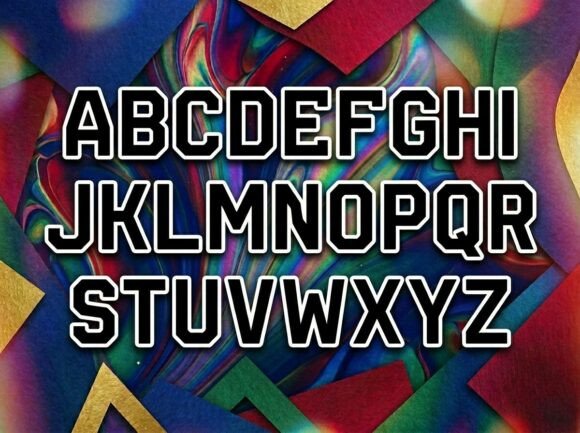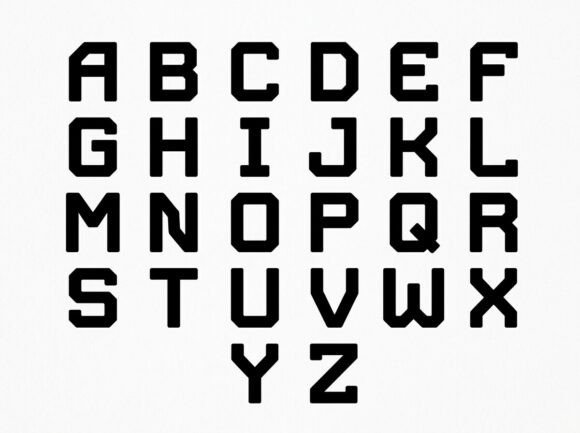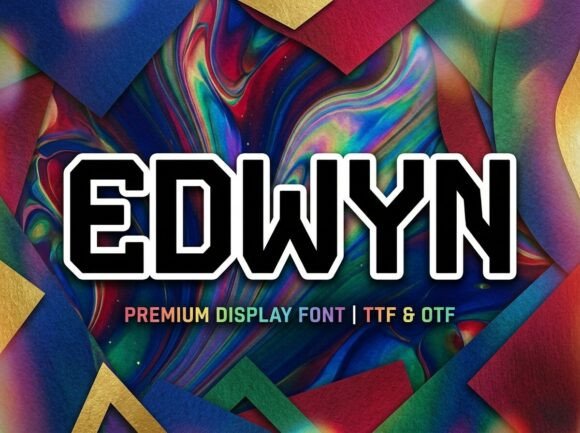
Introducing Edwyn Font: A Stunning Decorative Display Font
Are you tired of using the same old fonts for your designs? Do you want to add a touch of uniqueness and creativity to your projects? Look no further than Edwyn Font, a decorative display font that is sure to turn heads. In this article, we’ll take a closer look at Edwyn Font, its features, and how it can elevate your designs.
Edwyn Font is a stunning decorative display font designed to be the center of attention. With its unique artistic elements and strong visual personality, this font is perfect for creators who want to break away from the ordinary. Whether you’re working on a bold headline, artistic logo, or creative packaging, Edwyn Font is the perfect choice.
Key Features of Edwyn Font
- Unique Artistic Elements: Edwyn Font features unique artistic elements that set it apart from other fonts. Each letter is carefully crafted to make a statement, making it perfect for high-impact headlines, logos, and decorative initials.
- Strong Visual Personality: This font has a strong visual personality that is sure to grab attention. Its bold and eye-catching design makes it perfect for creative projects that require a touch of drama.
- Versatile: Edwyn Font is versatile enough for a variety of design applications, including bold headlines, artistic logos, and creative packaging.
- Professional and Polished Finish: Despite its bold and artistic design, Edwyn Font maintains a professional and polished finish, making it suitable for a wide range of projects.
Why Choose Edwyn Font?
So, why choose Edwyn Font for your design projects? Here are just a few reasons:
- Add a Touch of Uniqueness: Edwyn Font is a unique and creative font that will add a touch of personality to your designs.
- Stand Out from the Crowd: With its bold and eye-catching design, Edwyn Font is sure to make your designs stand out from the crowd.
- Perfect for Creative Projects: This font is perfect for creative projects that require a touch of drama and flair, such as artistic logos, bold headlines, and creative packaging.
Tips for Using Edwyn Font
Here are a few tips for using Edwyn Font in your design projects:
- Use it for Headlines: Edwyn Font is perfect for bold headlines and titles. Use it to grab attention and add a touch of drama to your designs.
- Pair it with Other Fonts: Edwyn Font can be paired with other fonts to create a unique and creative look. Try pairing it with a simple sans-serif font for a bold and eye-catching design.
- Experiment with Colors: Edwyn Font looks great in a variety of colors. Experiment with different colors and gradients to add depth and interest to your designs.
In conclusion, Edwyn Font is a stunning decorative display font that is sure to elevate your designs. With its unique artistic elements, strong visual personality, and versatility, this font is perfect for creative projects that require a touch of drama and flair. So why wait? Purchase Edwyn Font today and add a touch of uniqueness to your designs!